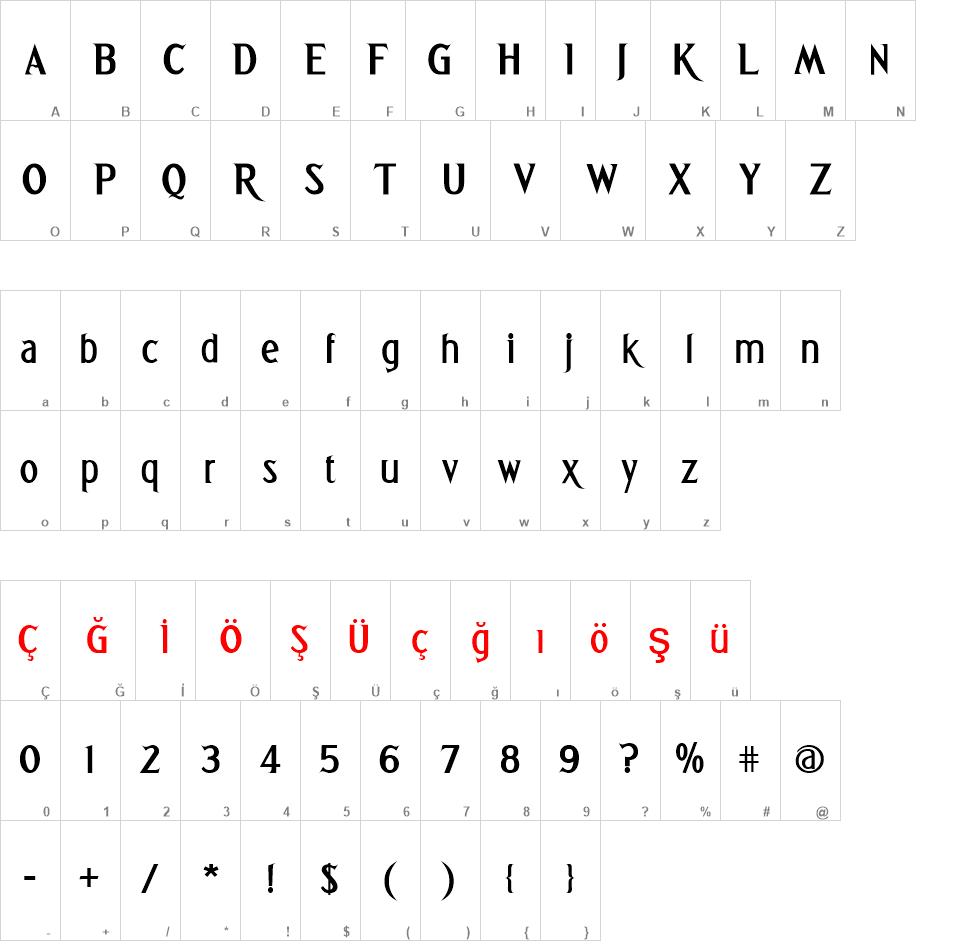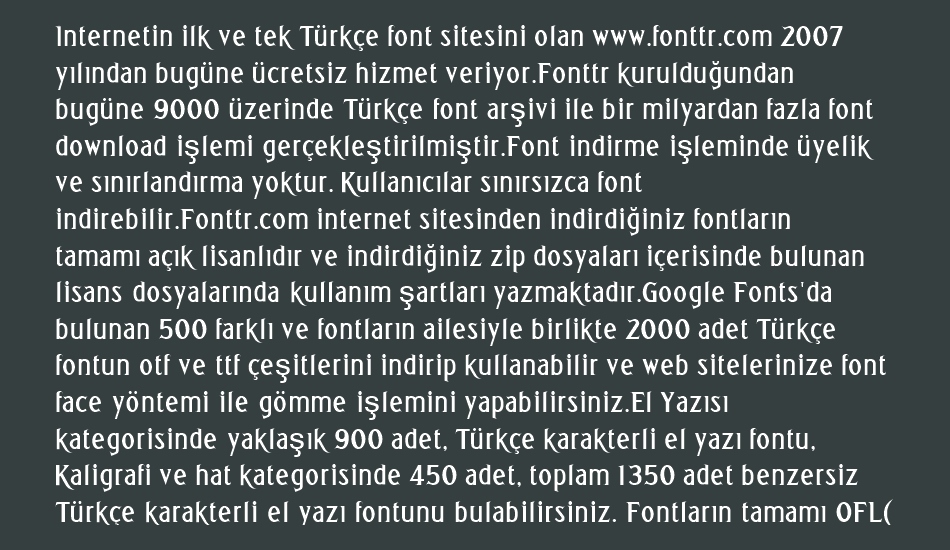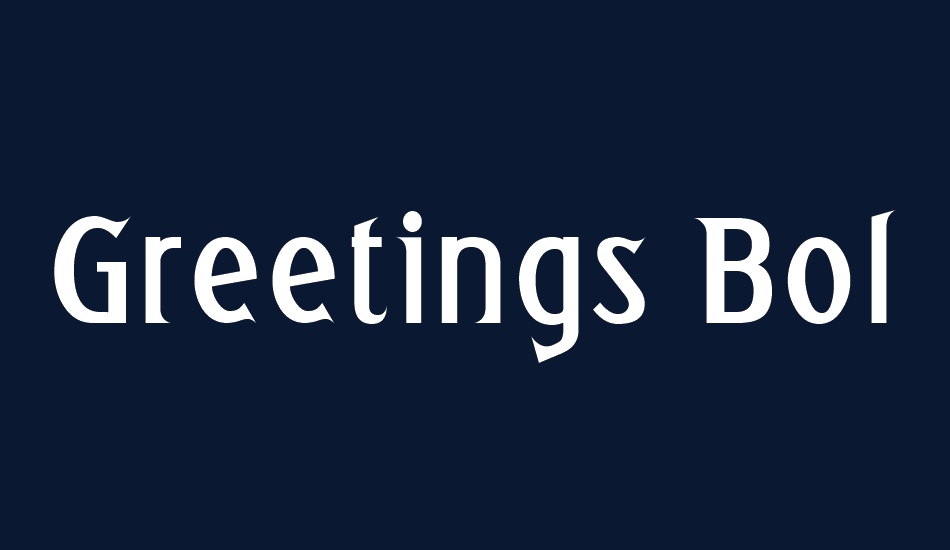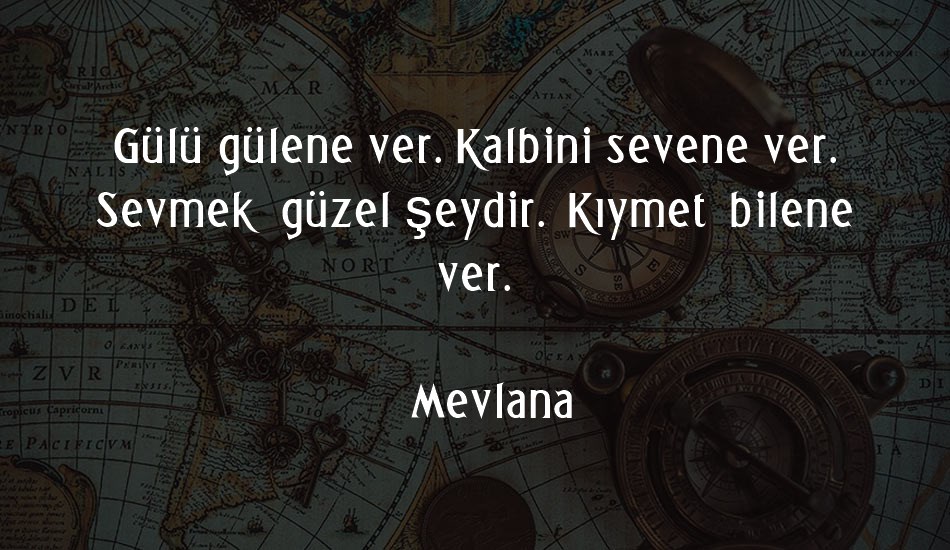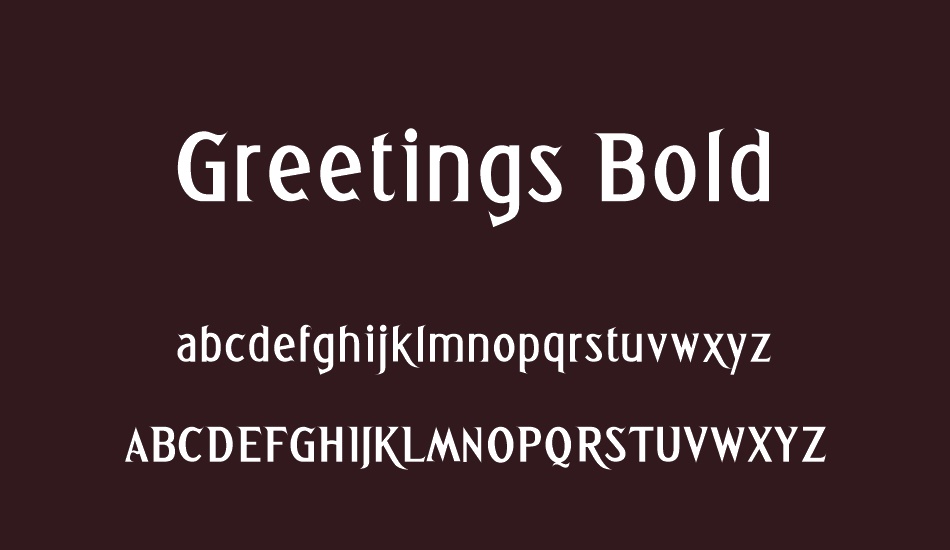
Greetings Bold font
=== GREETINGS ===
=== GREETINGS BOLD ===
Contemporary fonts with an old-fashioned feel, loosely inspired by the cover lettering of 'My Book About Christmas' by Joan Gale Thomas, 1946.